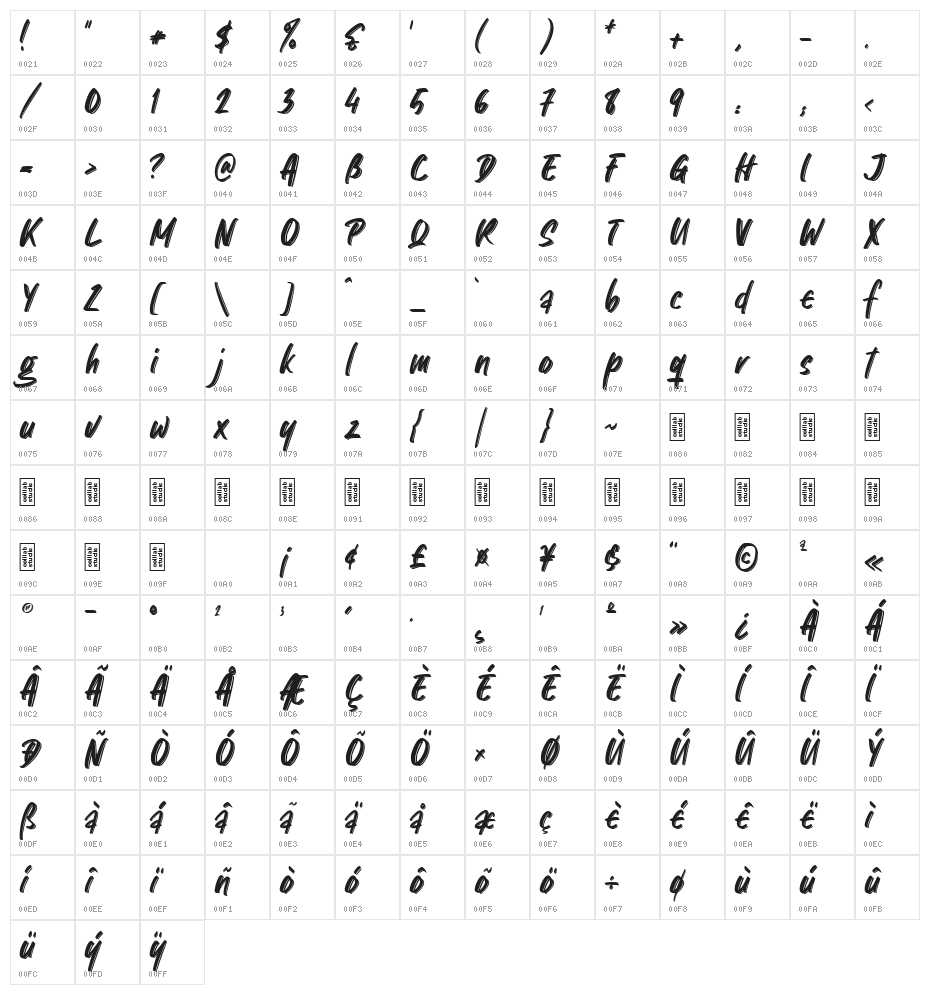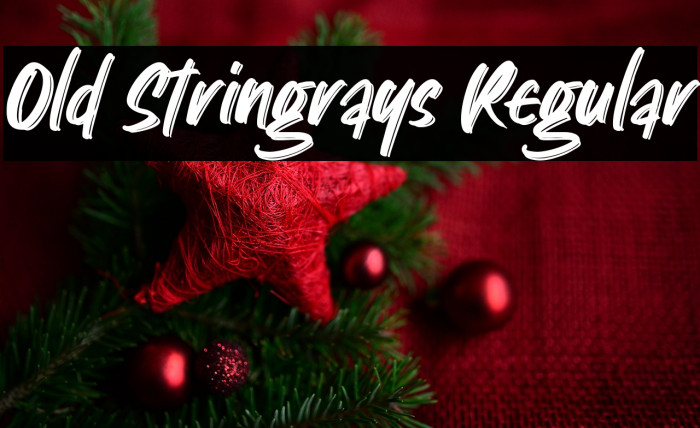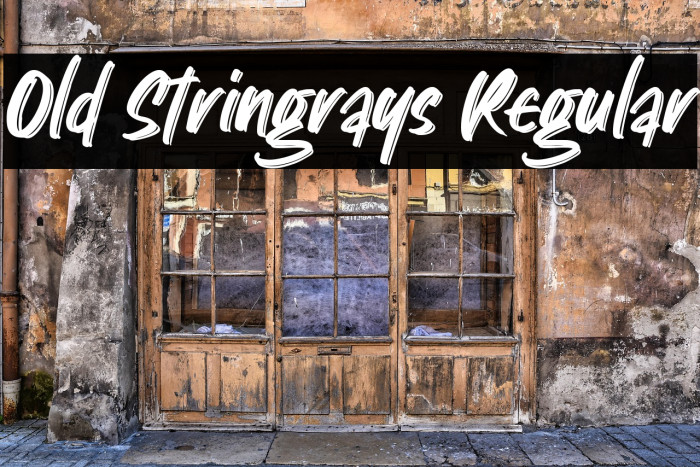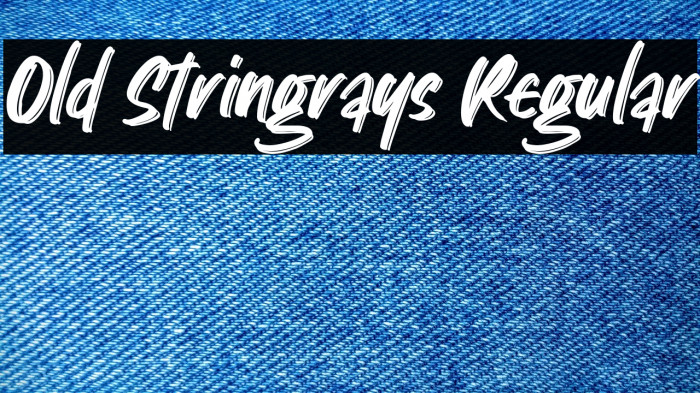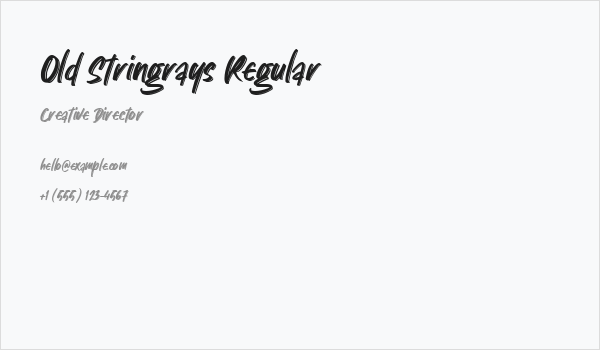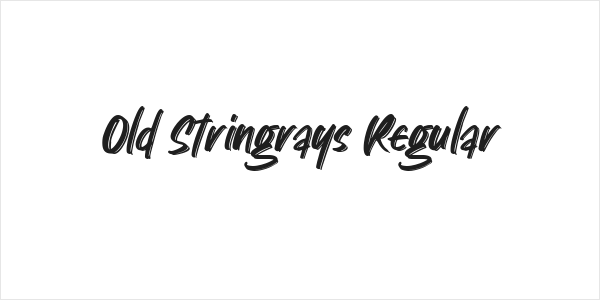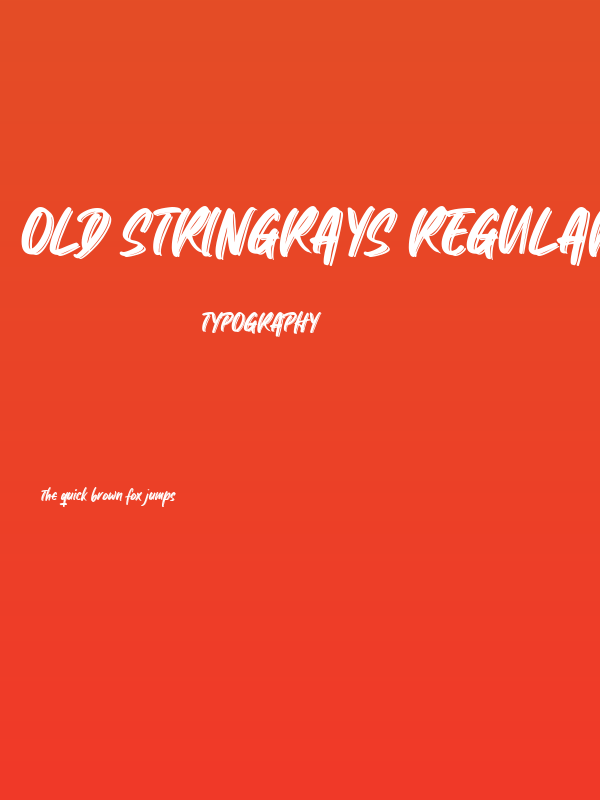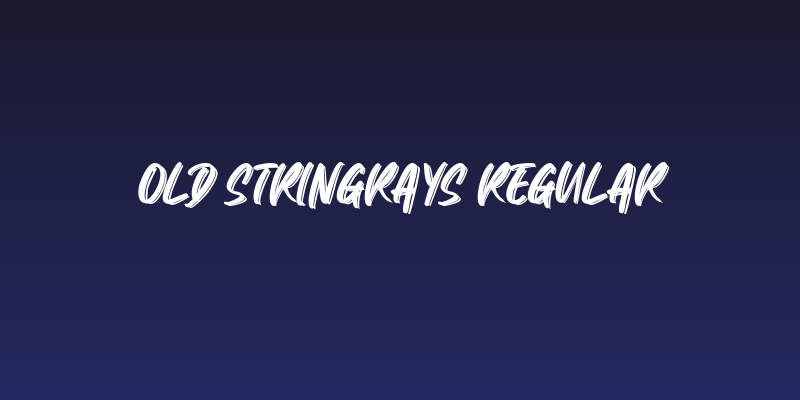
Old Stringrays Regular Font
Old Stringrays Regular Description
This font features a bold, energetic script style with a hand-drawn appearance. The letters are fluid and dynamic, with a slight slant that adds to the sense of movement. Each character is crafted with thick strokes, creating a strong visual impact. The uppercase and lowercase letters maintain a consistent style, with rounded edges and a playful flair. Numbers and special characters follow the same design principles, ensuring a cohesive look across all text. The overall design is expressive and lively, making it ideal for projects that require a personal touch.
| Use Case | Logos, Headlines, Posters |
| Proposed Projects | Ideal for branding, posters, invitations, and any project needing a personal, lively touch. |